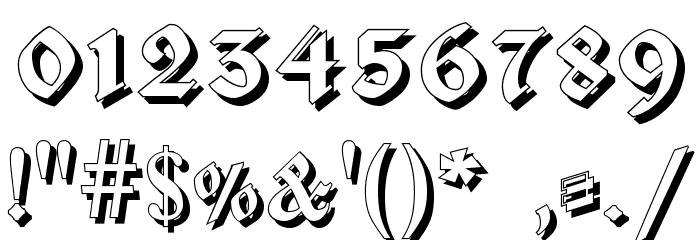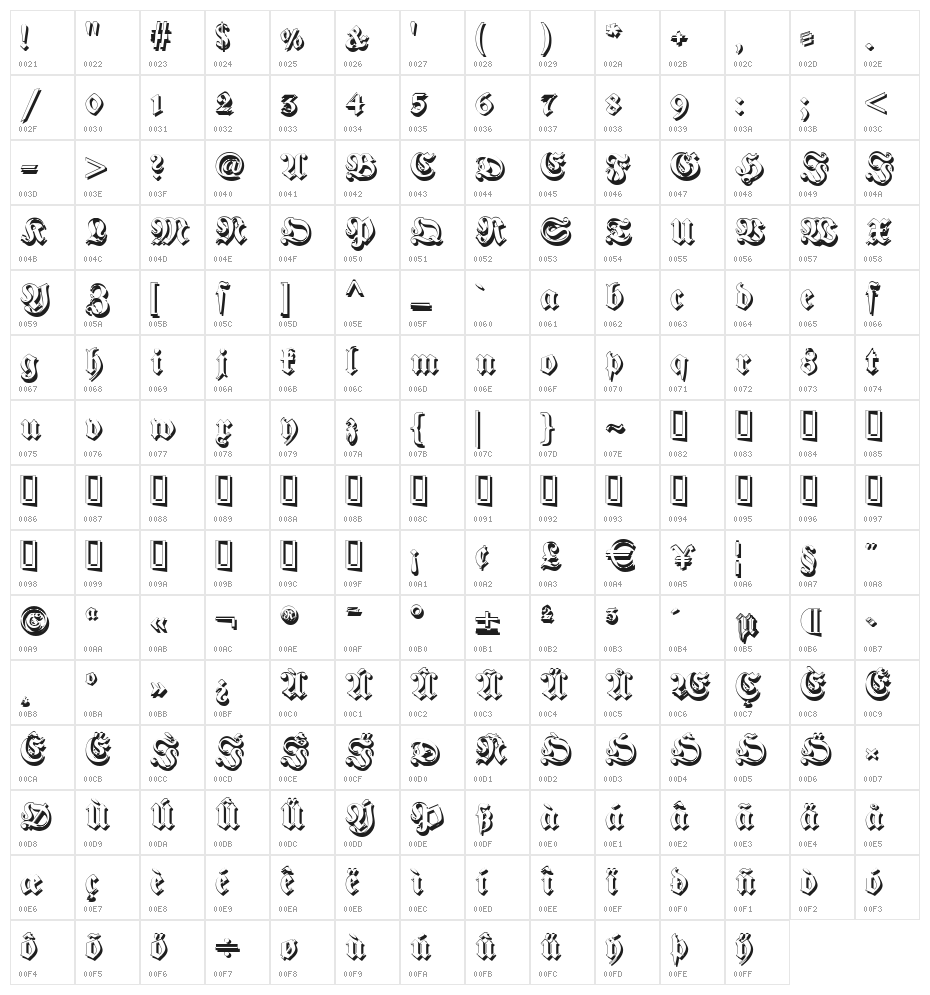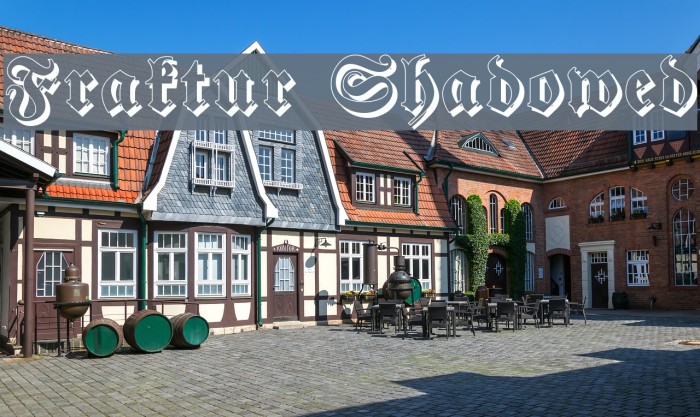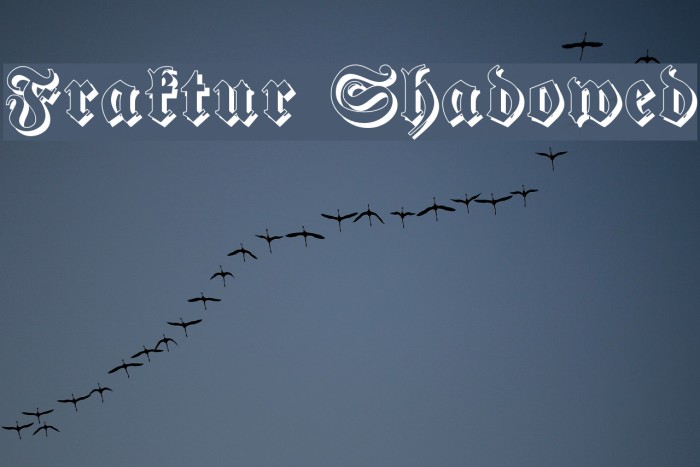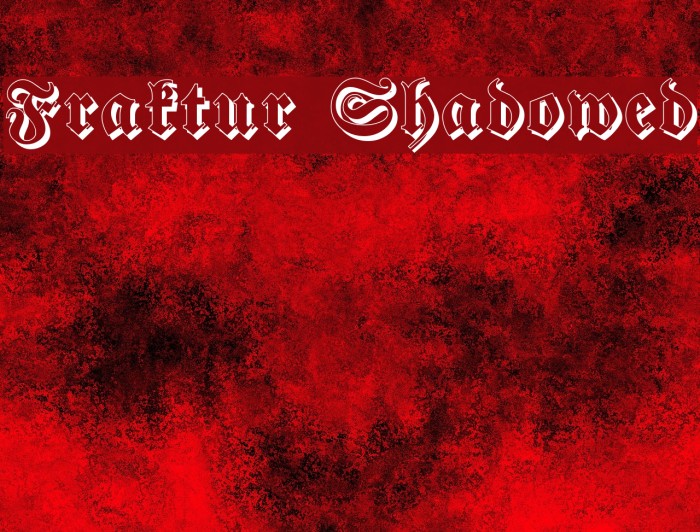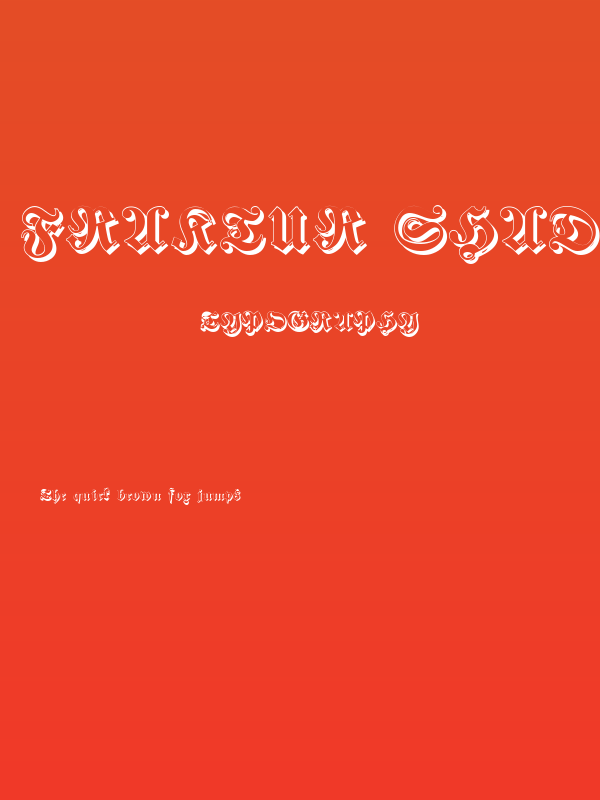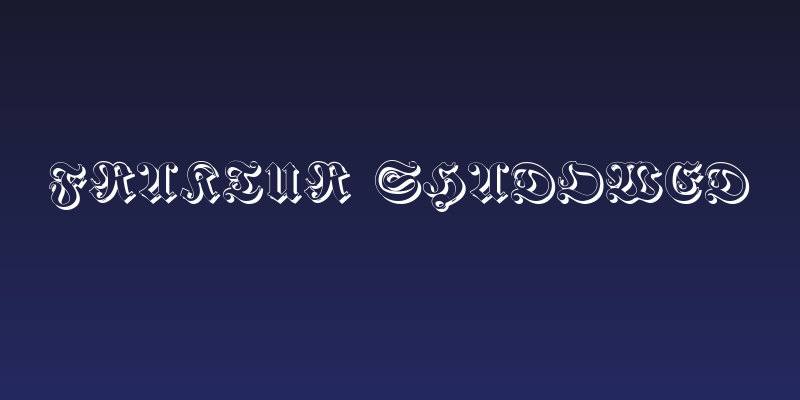
Fraktur Shadowed Font
Fraktur Shadowed Description
This font features a bold, shadowed style reminiscent of traditional blackletter typefaces. It combines intricate, ornate details with a strong, three-dimensional shadow effect, giving it a dramatic and eye-catching appearance. The uppercase letters are particularly elaborate, with flourishes and sharp angles that enhance its gothic aesthetic. The lowercase letters maintain the same level of detail, ensuring consistency throughout. Numbers and special characters are equally stylized, making this font versatile for various applications. Its historical and decorative nature makes it ideal for projects that require a touch of elegance and sophistication.
| Overall Style | Vintage, Decorative |
| Proposed Projects | Ideal for vintage-themed designs, book covers, posters, logos, and branding that require a historical or gothic touch. |